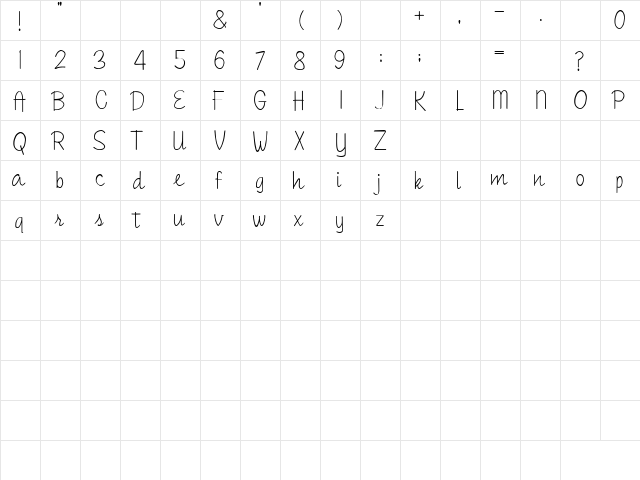
2Peas Champagne Regular
Design Context for 2Peas Champagne Typeface
2Peas Champagne takes a measured approach to typography — its balanced proportions and neutral character make it a reliable workhorse for both digital and print work.